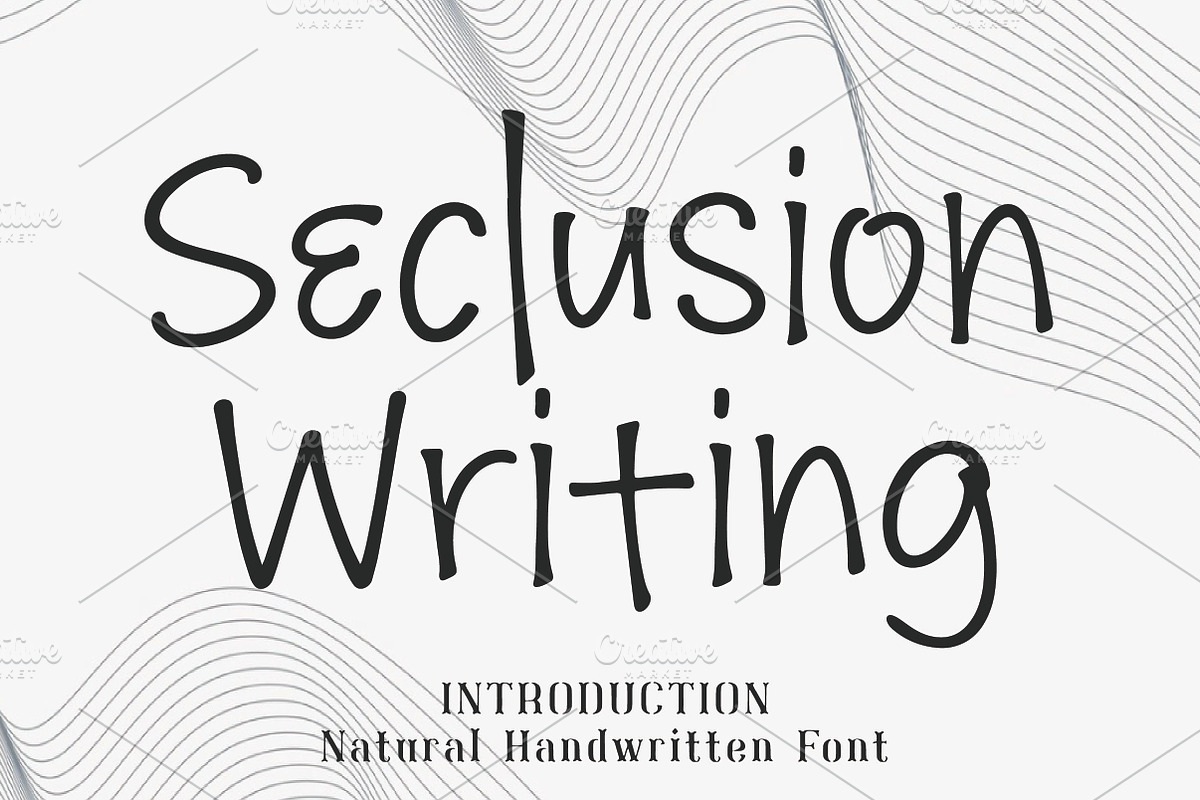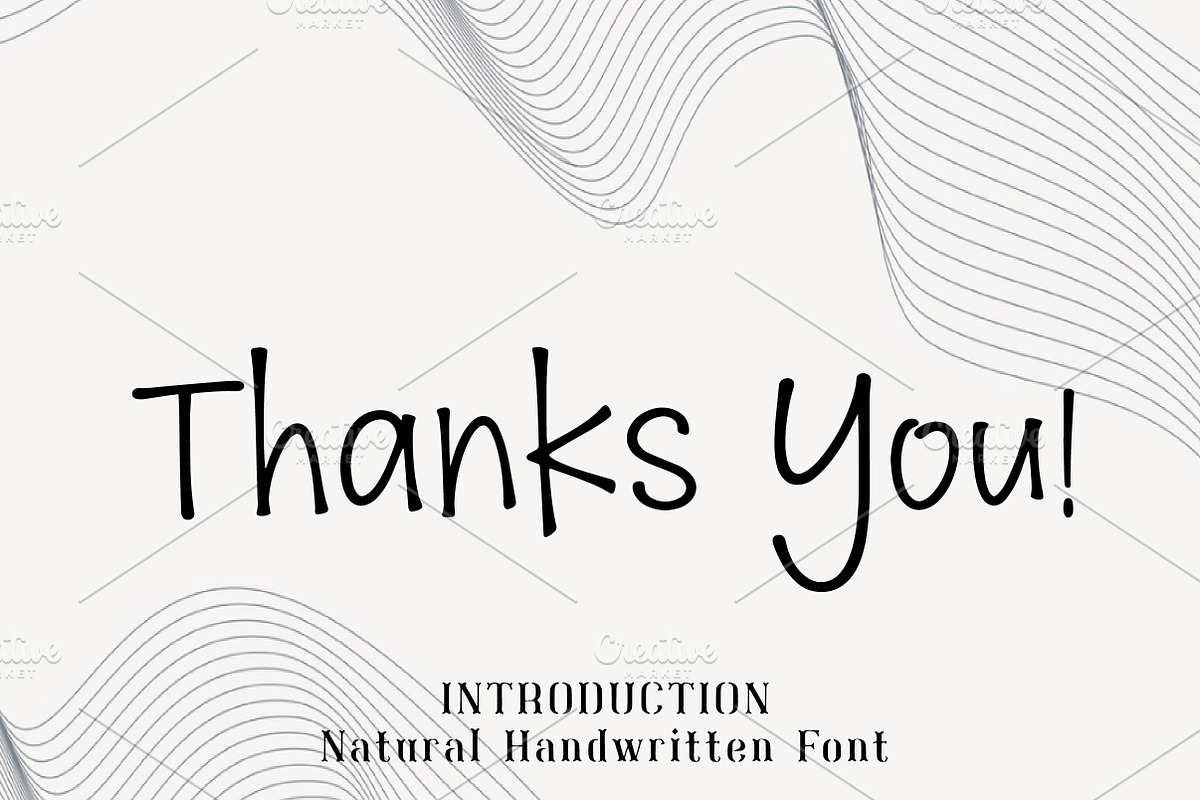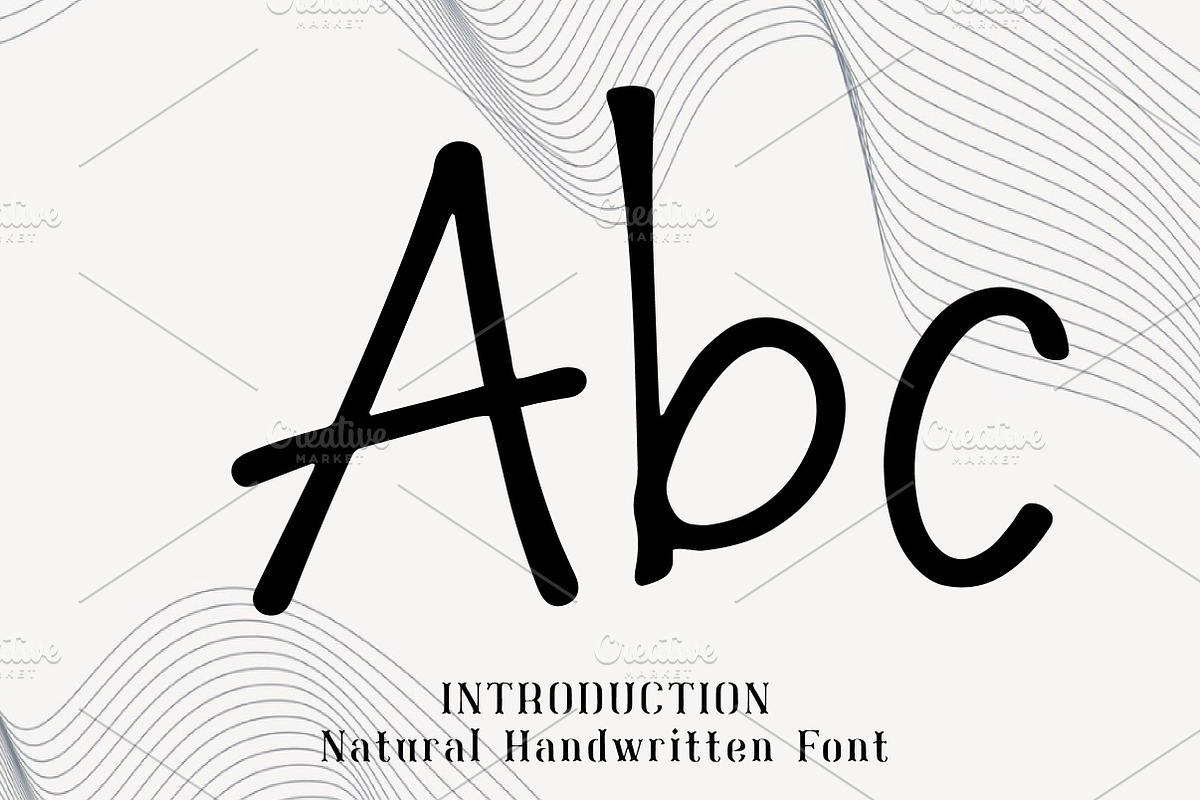
Seclusion Writing
Seclusion Writing – Natural Handwritten Font
Seclusion Writing is a natural and expressive handwritten font with a calm, personal, and artistic personality. Its smooth strokes and relaxed letterforms create an authentic handwritten look that feels warm, creative, and effortlessly charming.
With its casual and organic appearance, Seclusion Writing is perfect for journals, quotes, invitations, greeting cards, branding, packaging, social media graphics, blog designs, and creative lifestyle projects. It adds a soft handmade touch that makes every design feel more personal and genuine.
This font is a wonderful choice for designers and creators who want a typeface that feels simple, elegant, and naturally beautiful. Whether you are working on personal branding, stationery, or modern handmade designs, Seclusion Writing brings warmth and character to every layout.
Quotes and lettering projects
Invitations
Greeting cards
Journals and planners
Branding design
Packaging
Blog and lifestyle content
Handmade creative projects
Natural and expressive handwritten style
Smooth and authentic letterforms
Warm, personal, and creative feel
Perfect for both casual and elegant projects
Great for print and digital use
Seclusion Writing is a natural handwritten font with a soft, personal, and artistic style. Perfect for quotes, invitations, greeting cards, branding, packaging, and social media graphics, it adds a warm handmade touch to any design.